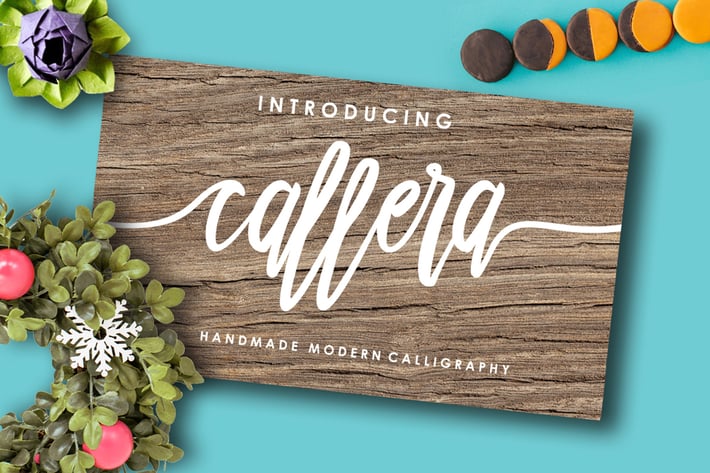
Callera Font
Callera is a handmade font with a stylish character. This font can help to to good display, can be used for various purposes.such as headlines, logos, wedding invitation, t-shirt, letterhead, signage, labels, news, posters, badges and all of your handcrafted projects presentations.
Callera features 300 glyphs, have 2 styles of initial & terminal forms, contextual alternate, ligatures and multiple language support.